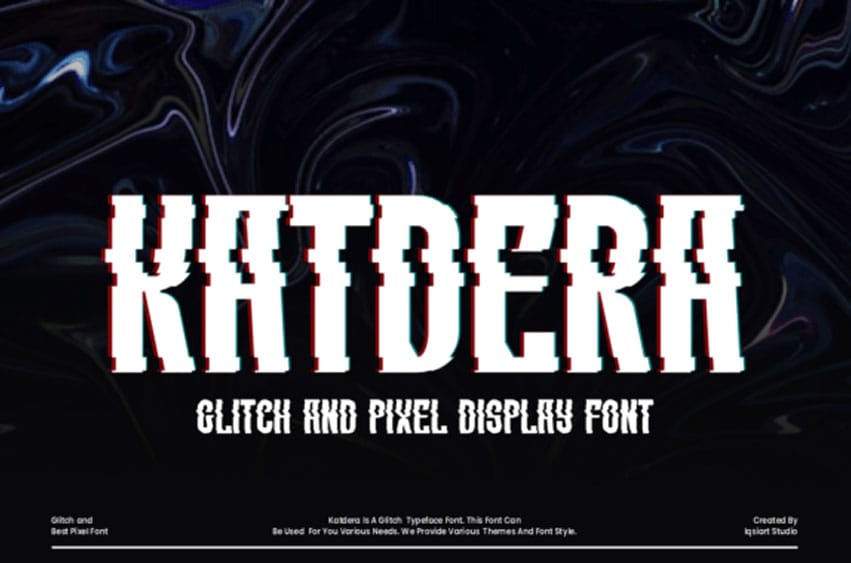
Katdera Font display font brings a bold, futuristic edge with its striking glitch effect that instantly commands attention. Its strong, blocky letterforms are fractured with digital distortions, creating a modern, cyberpunk aesthetic perfect for tech-inspired designs, edgy branding, or eye-catching posters.
The high-contrast strokes and layered chromatic glitch details add depth and dynamism, giving every composition a sense of motion and energy. Versatile and dramatic, Katdera is ideal for projects that aim to stand out, from music covers and gaming logos to digital artwork and sci-fi themes.